Iconic Movie Fonts Typography has always been an essential part of the film industry. From blockbuster posters to opening credits, iconic movie fonts help establish tone, emotion, and identity long before the audience watches a single frame. A font can instantly signal whether a movie is horror, comedy, sci-fi, fantasy, action, or drama.
For designers and filmmakers, understanding iconic movie fonts is crucial for developing strong cinematic branding. In this guide, we explore what makes a movie font iconic, how typography influences storytelling, and we present several high-quality font examples from EdricStudio that reflect professional movie-style design.
1. What Makes an Iconic Movie Fonts?
An iconic movie font is instantly recognizable, emotionally expressive, and visually unique. These fonts become part of the film’s identity, often continuing to live on in pop culture for decades.
Key characteristics include:
- Memorability — the font becomes synonymous with the film
- Distinct style — unique shapes or forms that stand out
- Emotional accuracy — the typography matches the film’s tone
- Brand alignment — the font supports logos, posters, merch, and marketing
- Versatility — works across different visual formats
Examples like Star Wars, Harry Potter, Jurassic Park, and The Godfather demonstrate how typography becomes a lasting cinematic symbol.
2. The Role of Typography in Iconic Movie Fonts Branding
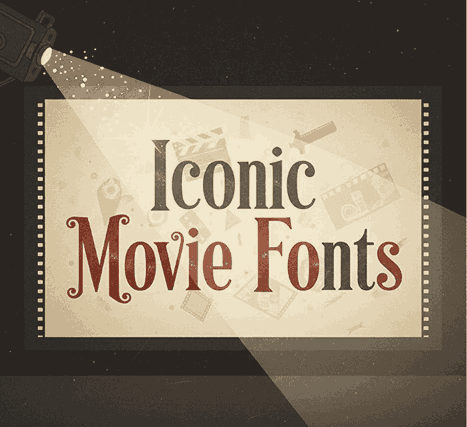
Typography serves as a visual gateway to the movie. Before audiences see the cast, plot, or trailer, they experience the film’s tone through typography.
Typography helps communicate:
- Genre (horror, sci-fi, thriller, romance, drama)
- Mood (dark, playful, serious, futuristic, intense)
- Setting (historical, modern, dystopian)
- Style (minimalist, expressive, cinematic)
A well-chosen font elevates the entire film brand, making posters more attractive, titles more memorable, and marketing more effective.
3. Types of Iconic Movie Fonts That Stand Out
While every movie has its own creative identity, iconic movie fonts often fall into recognizable categories:
a. Action & War Fonts
Bold, gritty, sharp-edged, military-style typefaces.
Used in action movies, military dramas, or survival-themed films.
b. Horror Fonts
Distorted, scratchy, eerie shapes that evoke fear.
Perfect for thrillers, paranormal films, and slasher movies.
c. Sci-Fi & Futuristic Fonts
Clean, geometric, or technological styles that feel advanced.
Used in cyberpunk, alien, space, or tech-based films.
d. Brush & Dramatic Cinematic Fonts
Hand-painted, rough, or textured letters that express intensity.
Often used in drama, historical films, or retro-style movies.
4. How Designers Can Create Iconic Movie Fonts Typography
Designers who want to craft cinematic fonts should focus on:
- Emotional authenticity
- Strong silhouettes and readable shapes
- Unique features such as ligatures or special alternates
- Versatility across posters, trailers, merch
- Compatibility with print, digital, and large-scale formats
By studying existing movie typography and understanding genre conventions, designers can produce fonts with strong cinematic impact.
5. Font Examples You Can Use (With Mockups)
Below are four movie-style fonts from EdricStudio that fit perfectly for iconic film titles, posters, trailers, or branding.
1. War Movie Font — Action / War Genre
The War Movie Font features sharp, aggressive strokes ideal for action-packed, military, or survival-themed films.
Its bold characters stand out on posters, DVD covers, and promotional graphics.
Perfect for intense cinematic titles and gritty marketing visuals.
2. Horror Type Font — Thriller / Horror Genre
This font delivers a mysterious and chilling atmosphere through its jagged, expressive shapes.
Perfect for horror posters, thriller openings, paranormal titles, or dark-themed storytelling.
Its dramatic presence automatically creates tension and fear.
3. NOTHAN Futuristic Font — Sci-Fi / Cyberpunk Genre
A clean yet futuristic typeface suitable for sci-fi movies, space adventures, or cyberpunk worlds.
Comes with multiple styles (Regular, Italic, Outline), allowing designers to craft dynamic layouts.
Great for movie posters, futuristic UI screens, and title sequences.
4. Oscar Wright Rough Font — Dramatic / Retro Cinematic Style
This brush-style rough script delivers a handcrafted cinematic feel.
Excellent for dramatic film titles, historical movies, indie films, and emotional storytelling.
Its textured brush strokes make it stand out in trailers and visually expressive posters.
6. How Iconic Movie Fonts Influence Audience Perception
Typography isn’t just visual decoration—it’s psychological communication.
Movie fonts can influence:
- Expectations (viewers can sense genre immediately)
- Emotional response (fear, excitement, nostalgia)
- Story interpretation (modern, retro, futuristic, ancient)
- Brand recognition (fans recognize the film by its font alone)
A strong font can even make a mediocre poster appear professional and cinematic.
7. Tips for Choosing the Right for an Iconic Movie Fonts Project
Whether you’re creating a movie poster, a teaser, or a YouTube cinematic intro, follow these rules:
- Match the genre with the font’s energy
- Ensure legibility, especially in large titles
- Use high-contrast color combinations
- Avoid overusing decorative elements
- Choose a font with licensing appropriate for film/commercial use
- Use professional mockups to elevate presentation
The right typography can transform your film’s visual identity instantly.
8. Final Thoughts Iconic Movie Fonts
Iconic movie fonts play a major role in shaping how audiences perceive and remember a film. With the right combination of style, tone, and emotional impact, a font can become a cultural symbol—an unforgettable part of cinematic history.
By understanding genre-specific typography, studying famous examples, and using professional movie-style fonts such as War Movie Font, Horror Type, NOTHAN Futuristic, and Oscar Wright Rough, designers can create powerful visuals that elevate film branding to a professional level.
Typography isn’t just design; it’s storytelling.